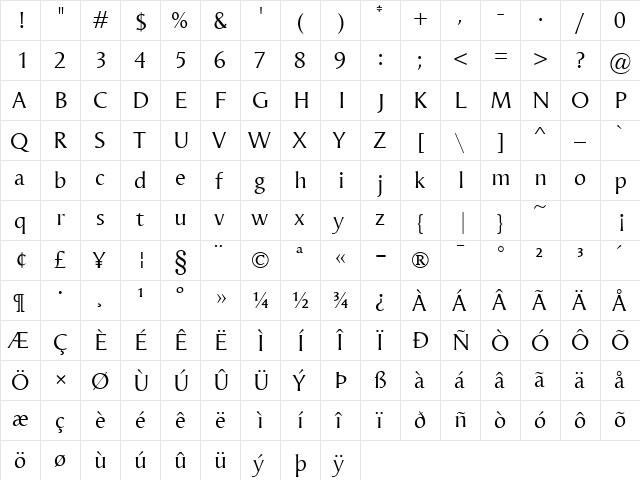
Odense Regular
Design Context for Odense Typeface
Odense is a composed and adaptable typeface that performs quietly and consistently across a wide range of design contexts.